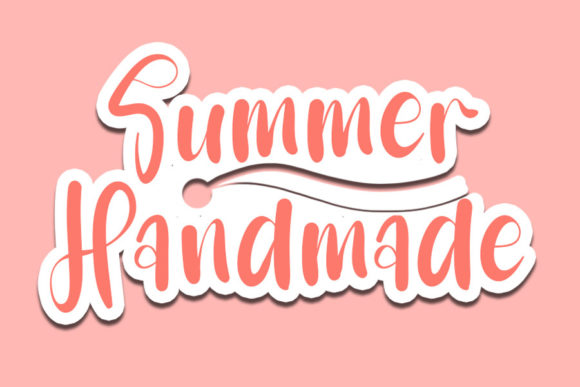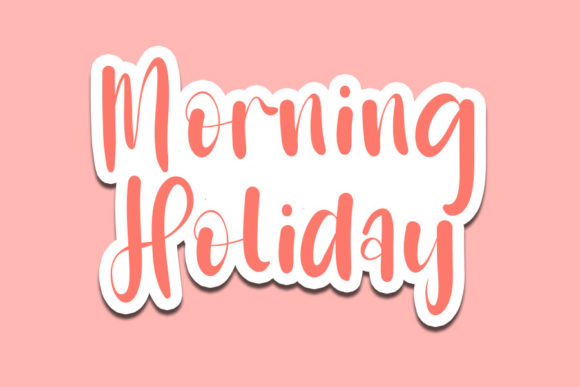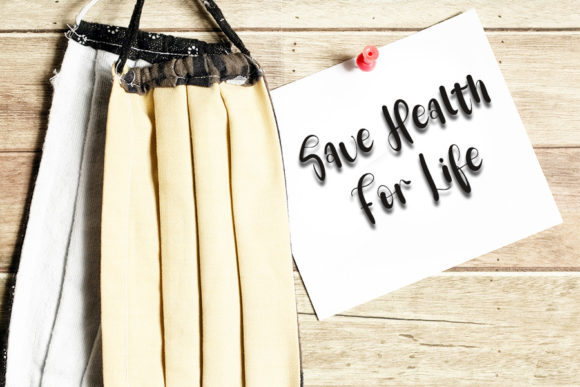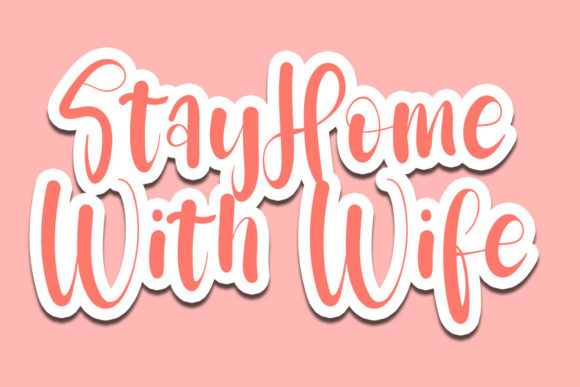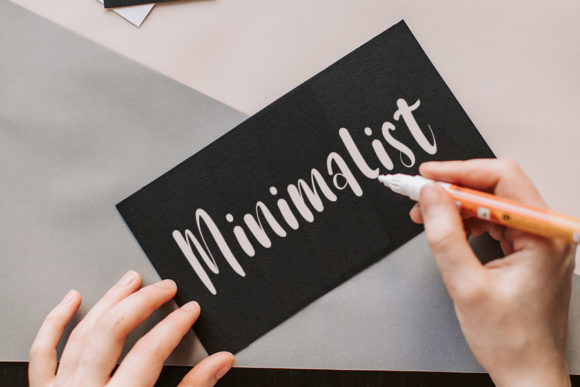
Summer Handmade Font
About Summer Handmade Font
Summer Handmade is a splendid and timeless handwritten font. It is the best choice for creating eye catching logos, branding and quotes. Every letter has a unique and beautiful touch, which will make your design come alive!